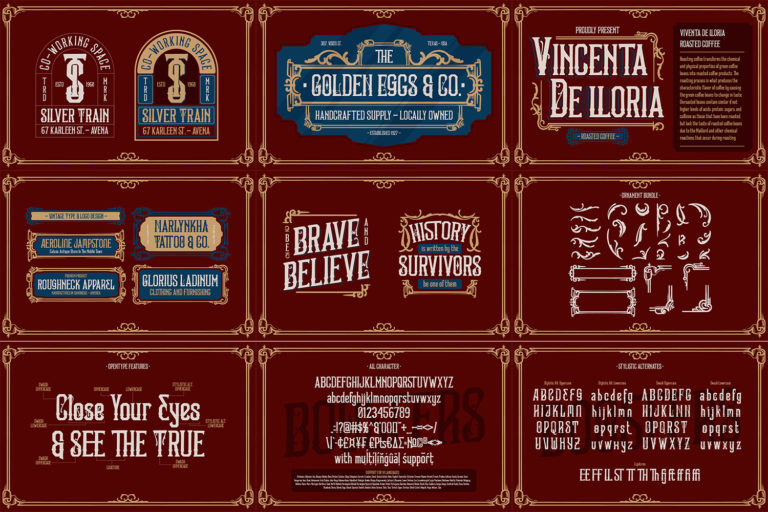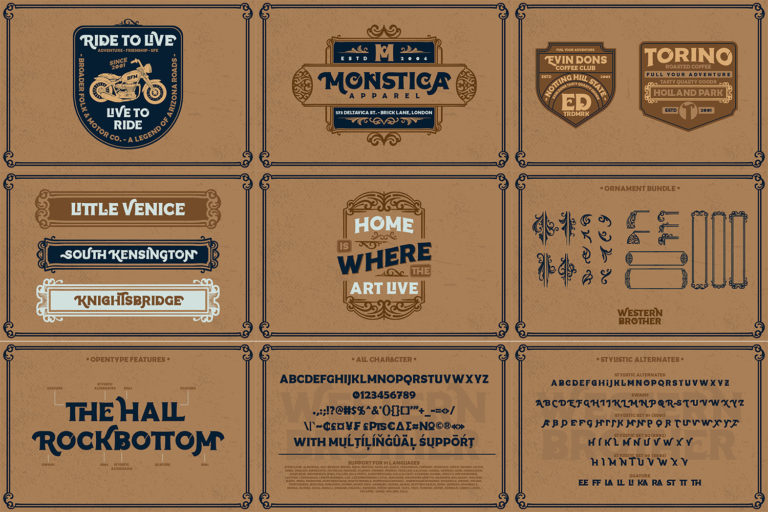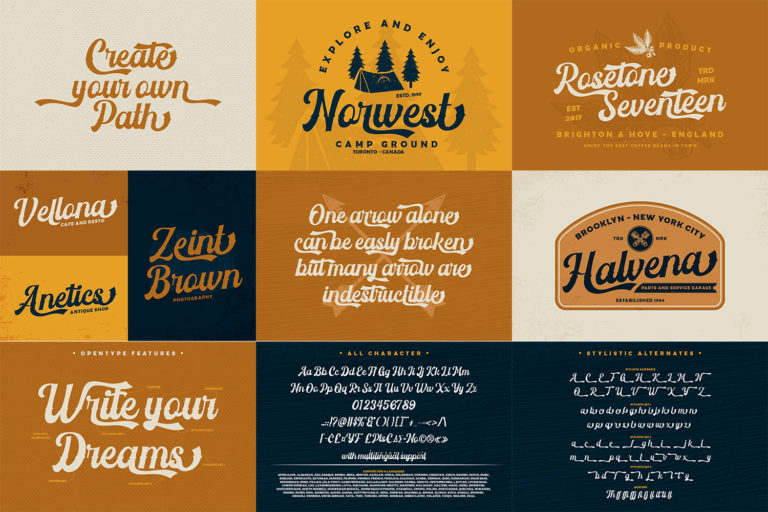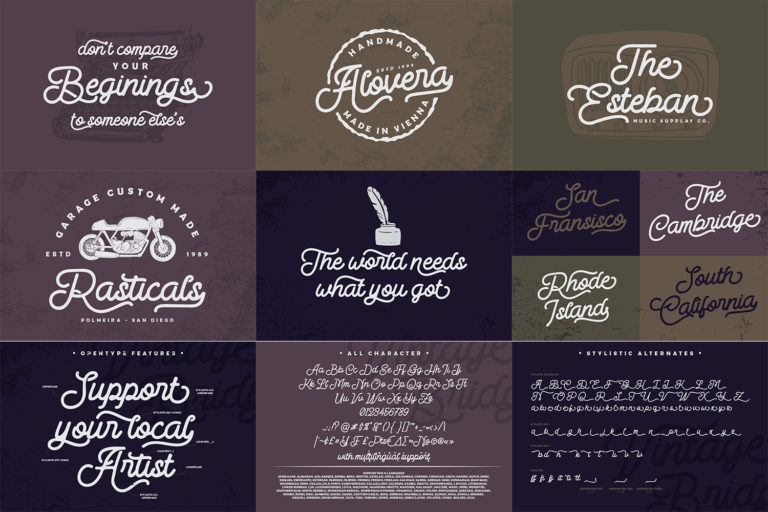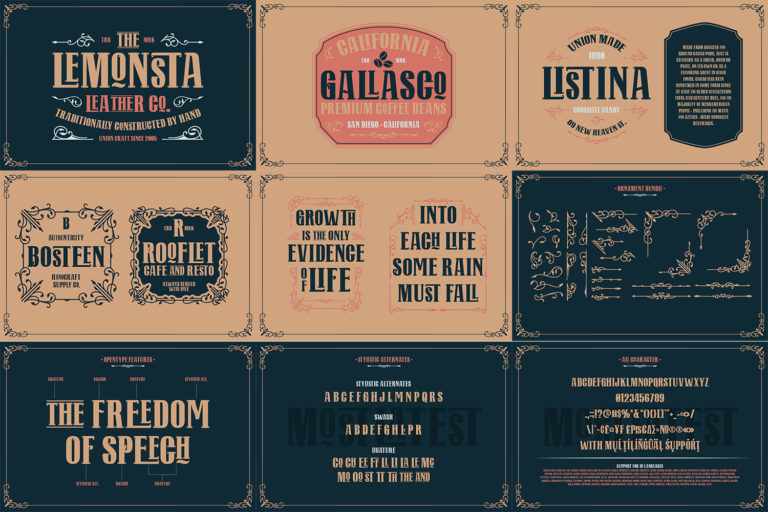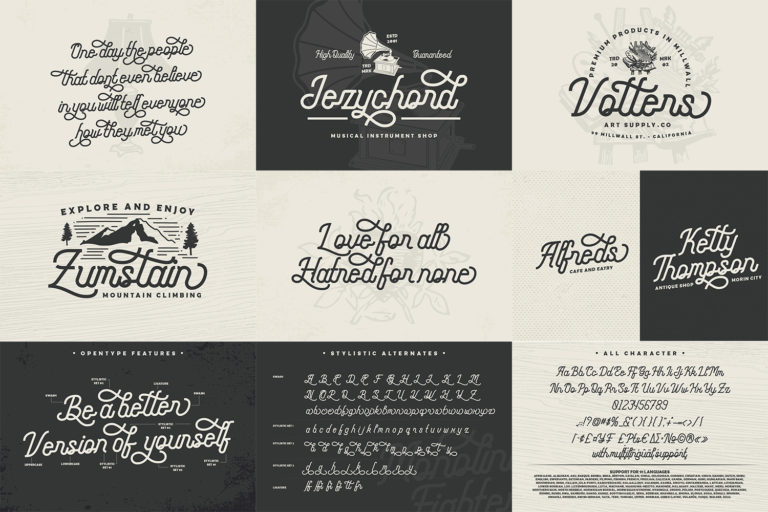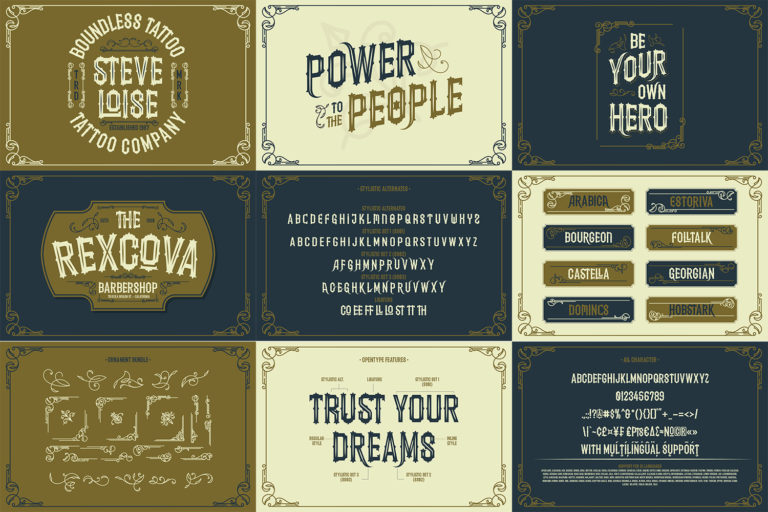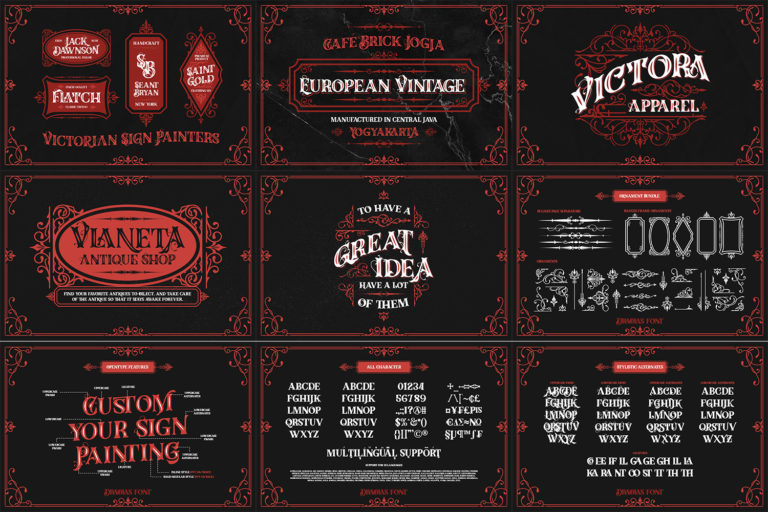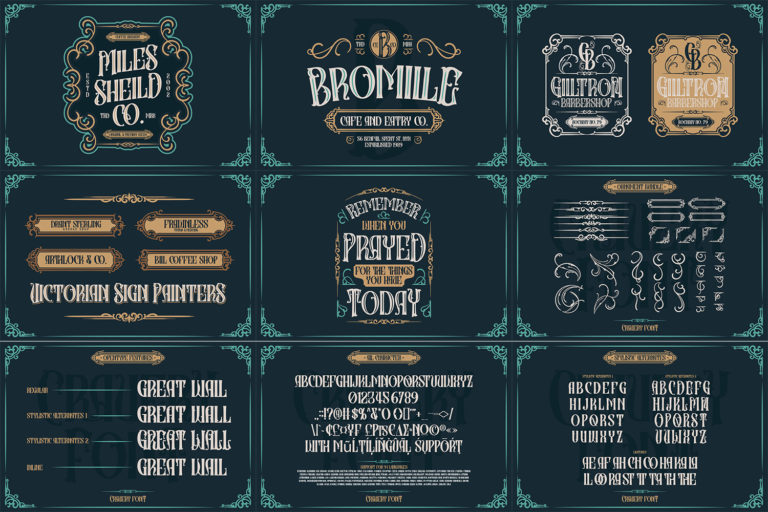
Vintage Font Bundle
Hello, Guys! Introducing a Vintage Font Bundle from Din Studio
Vintage Font Bundle consists of 10 fonts that have a retro style look. The fonts can be used for a host of different content needs and projects. Create gorgeous printed quotes, standout packaging, or beautiful t-shirts! You can even use it to create amazing headings, logos, menus, and social media graphics.
Don’t worry, our fonts always include Multilingual Support to make your branding reach a global audience. See the previews above to get some inspiration on how you can use them.
Vintage Font Bundle Includes: